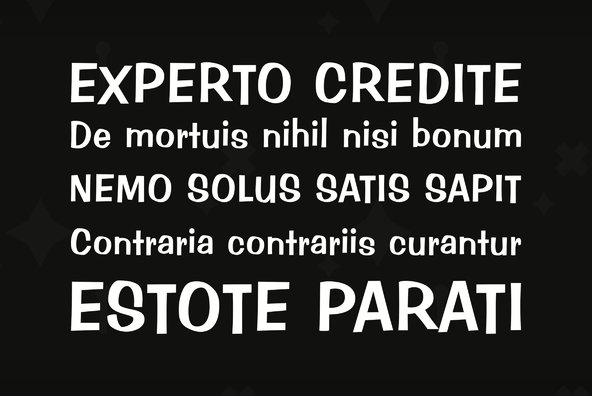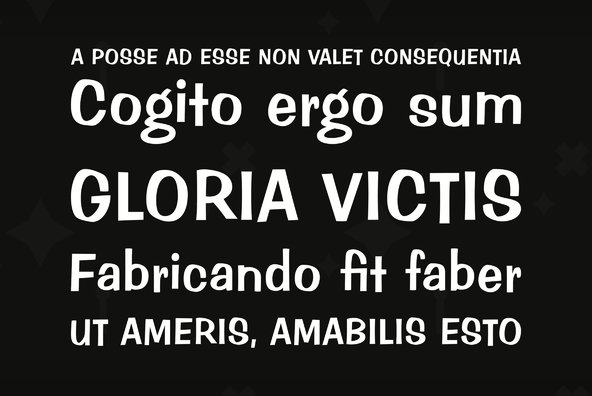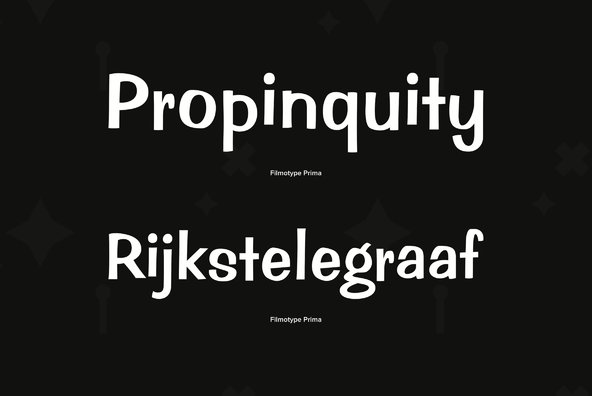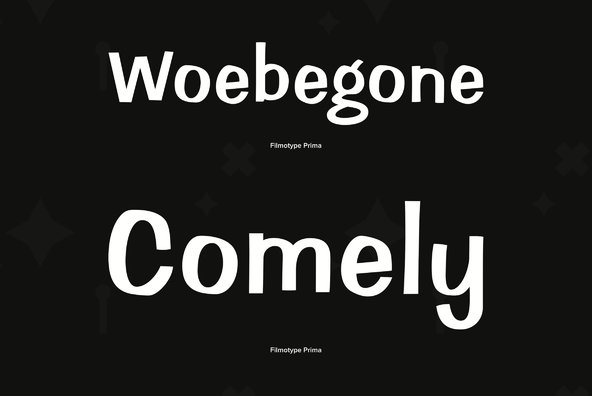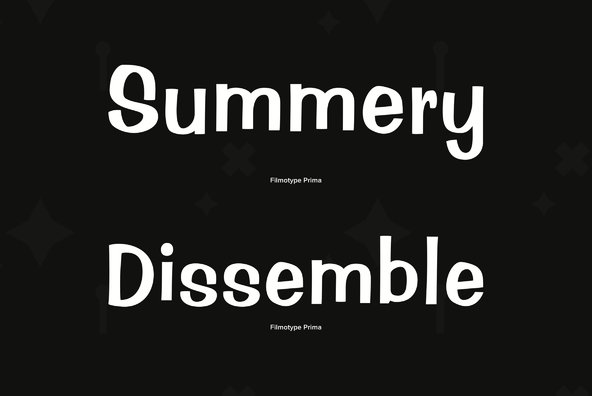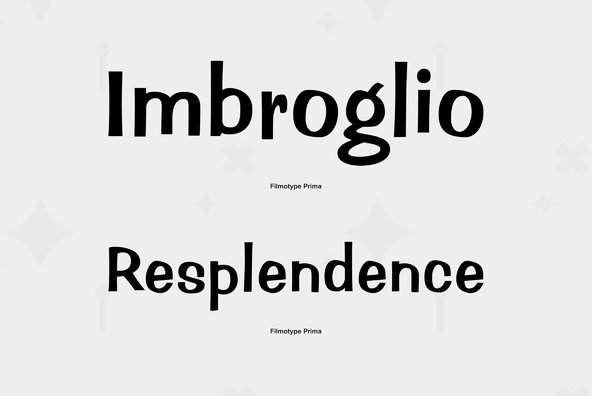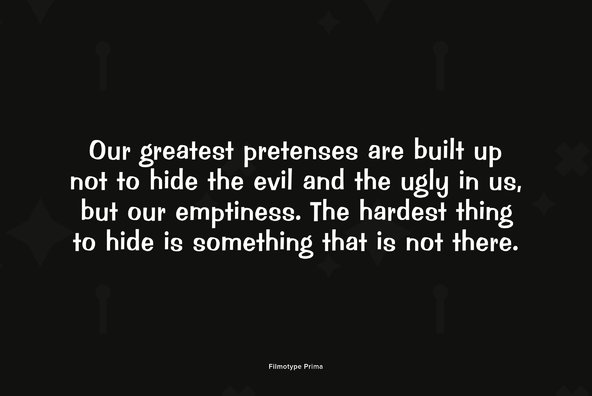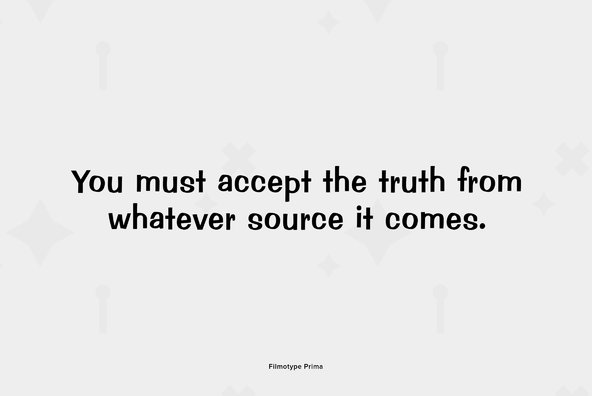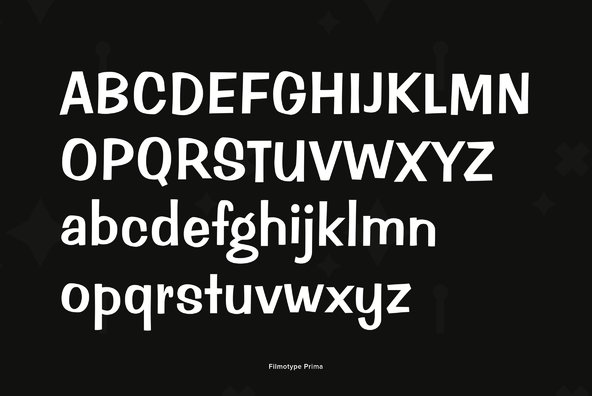
Filmotype Prima
Initially offered in 1955, Filmotype Prima was one of Filmotype’s earliest Free Style typefaces based on popular informal hand-painted lettering styles of sho-card lettering artists of the era.
Remastered and expanded with exacting precision from the original filmstrips, Filmotype Prima includes a full international character compliment, automatic fractionals, ordinals, and a suite of alternates in dynamic OpenType format.